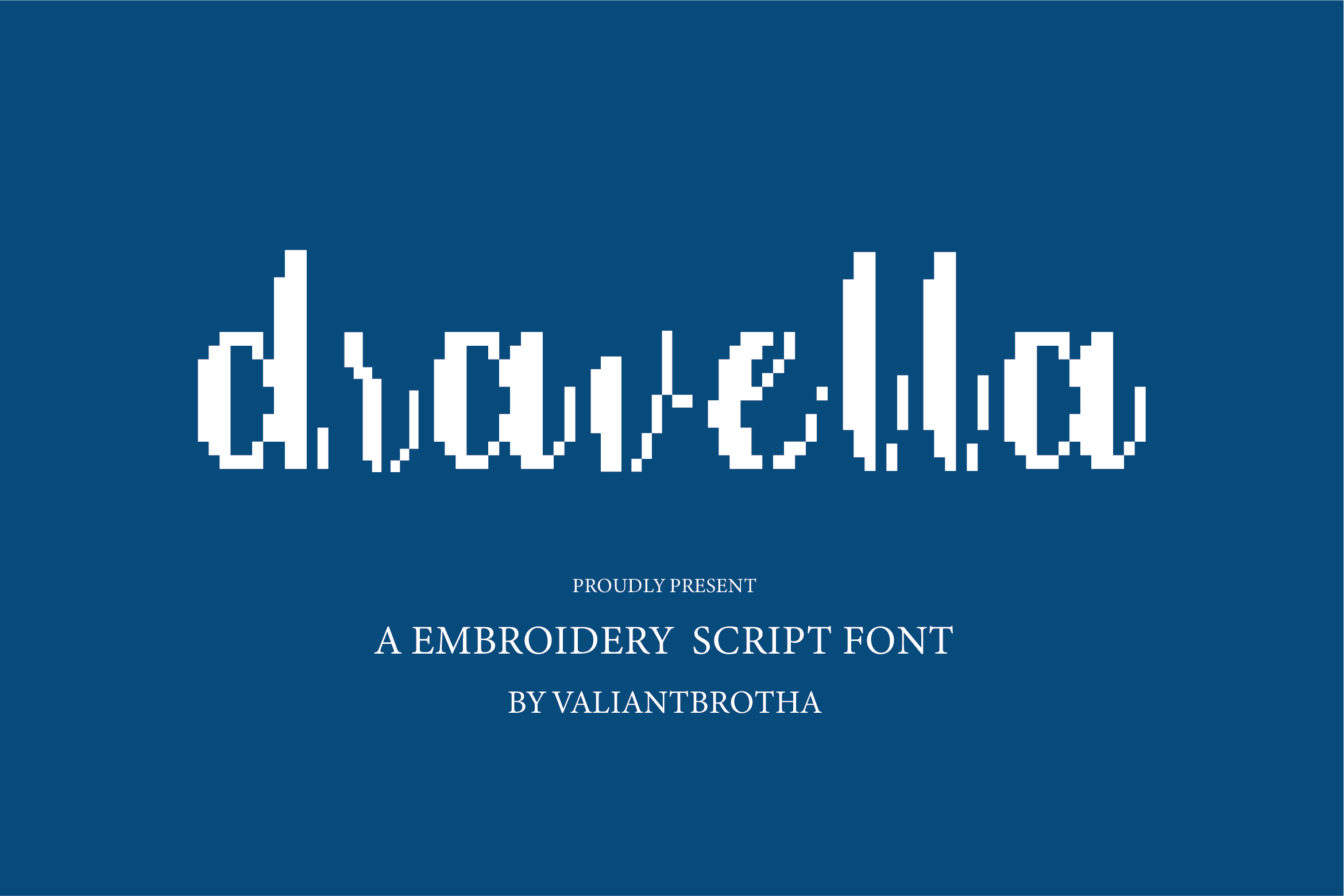
Dravella | A Embroidery Script Font
Dravella is a distinctive embroidery-inspired script font that blends pixelated structure with handcrafted aesthetics.
Numbers, marks and symbols